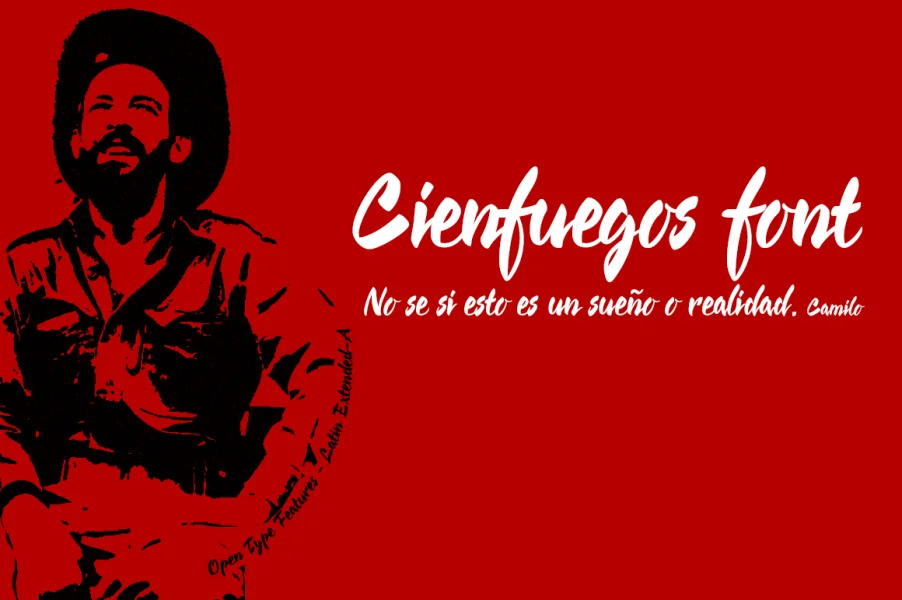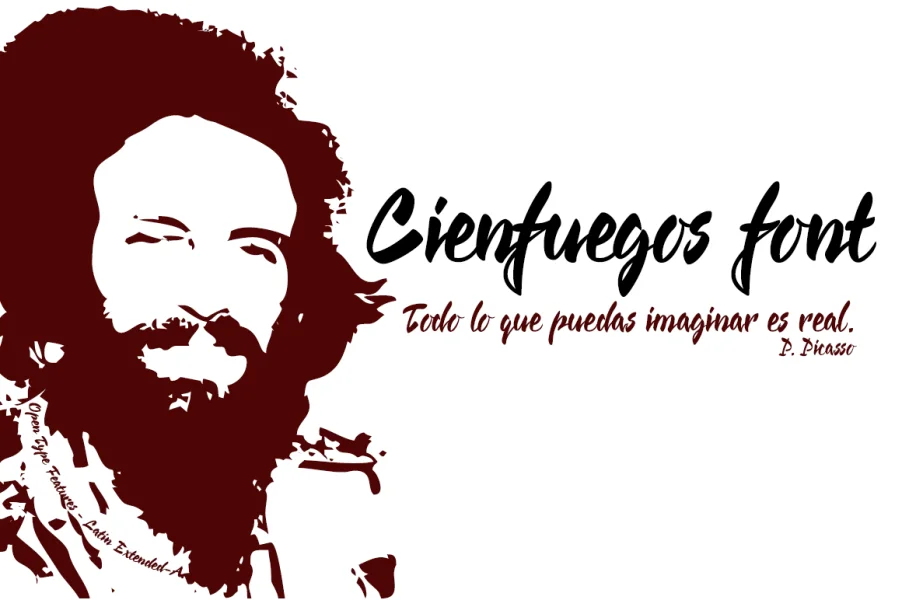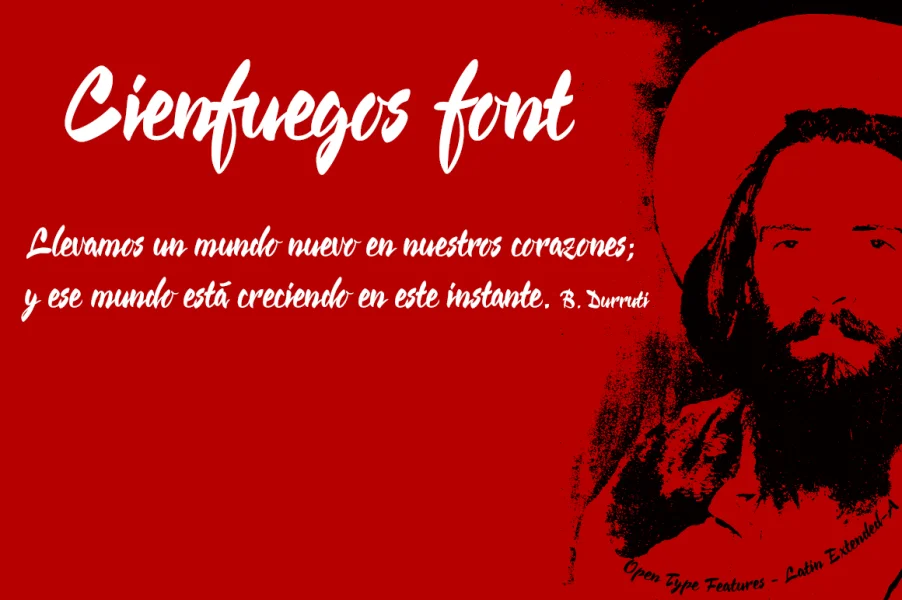
Cienfuegos is a concatenated handwritten font.The name is dedicated to Camilo Cifuentes, Cuban revolutionary humanist raised in freedom by two Spanish anarchists, their parents.
Bitcoin symbol (ligatures): b#